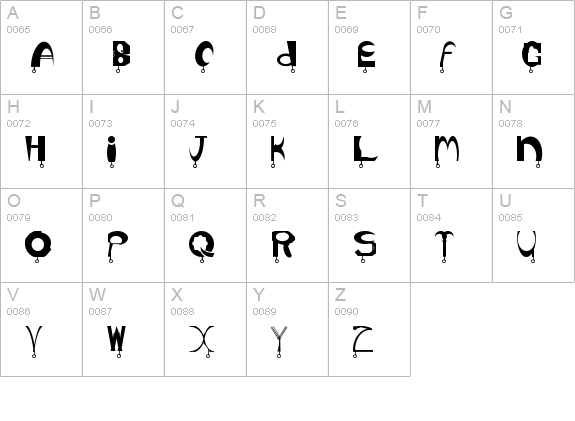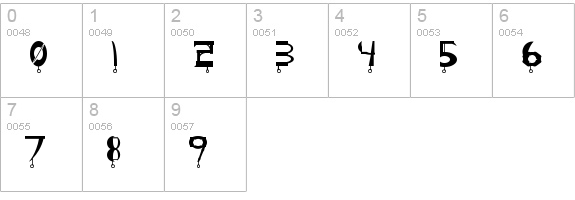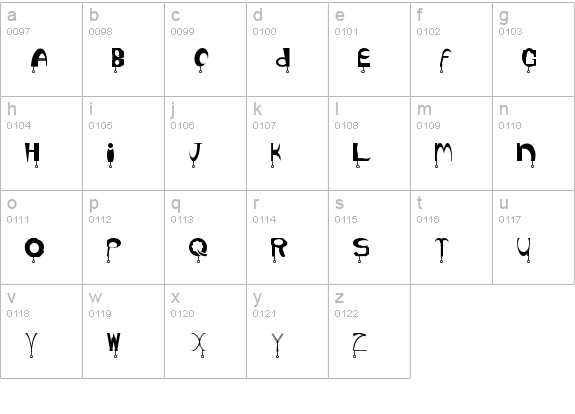
Hyper 3 Font Details
Hyper 3 font is a modern and sleek typeface that exudes a sense of energy and dynamism. Its sharp edges and futuristic design make it perfect for projects that require a contemporary touch. This versatile font can be used for a variety of purposes, from branding to graphic design to web development. What sets Hyper 3 font apart is that it is available for free download at FontsMarket.com. This means that you can easily access and use this eye-catching font without any cost. Whether you're a designer looking to add a fresh look to your projects or a business owner wanting to make a bold statement with your branding, Hyper 3 font is the perfect choice. Download it today and elevate your designs with this striking typeface.